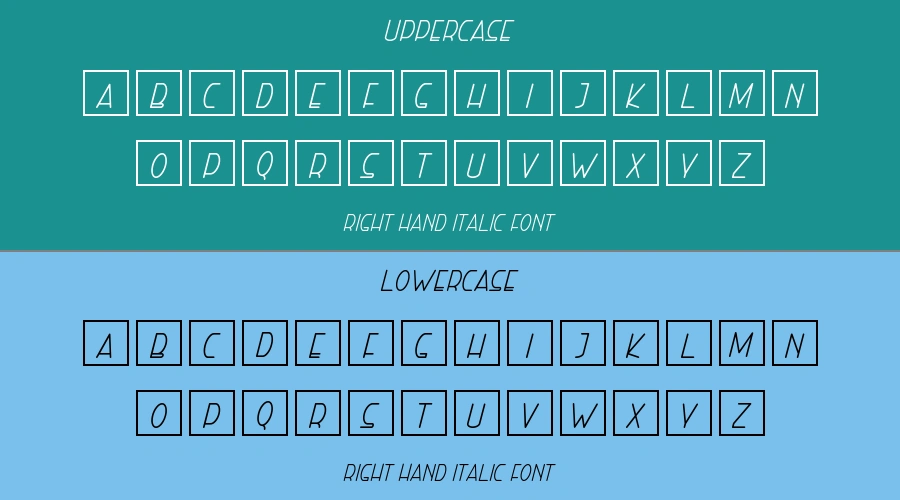
About Right Hand Italic Font
Right Hand Italic Font embodies typographic excellence through its masterful combination of harmonious shapes and clarity. Created for annual reports, this typeface delivers exceptional functionality and market relevance across all applications. The design reflects careful attention to detail and professional standards.
Advanced capabilities include distinctive alternates and versatile connecting forms, giving designers creative control. When used in certification marks, Right Hand Italic Font exhibits remarkable small text rendering. The harmonious balance between proportion and creative versatility sets this typeface apart.